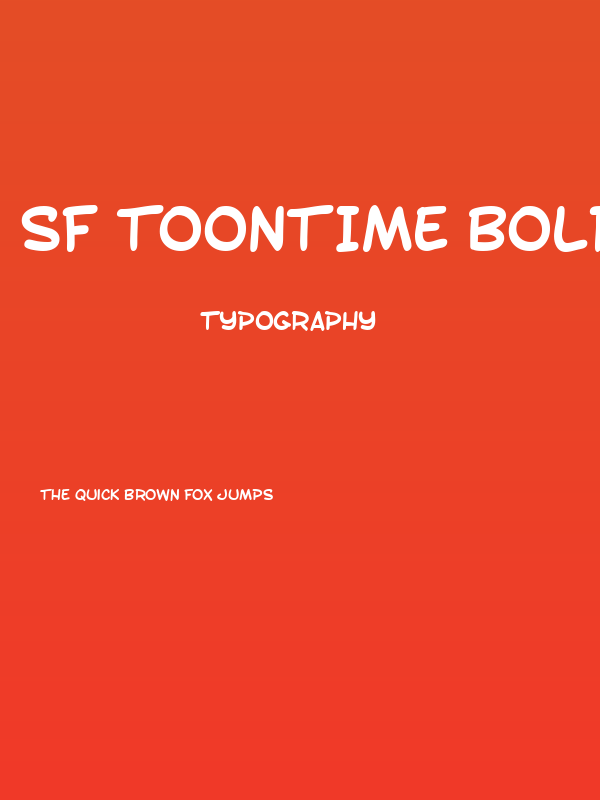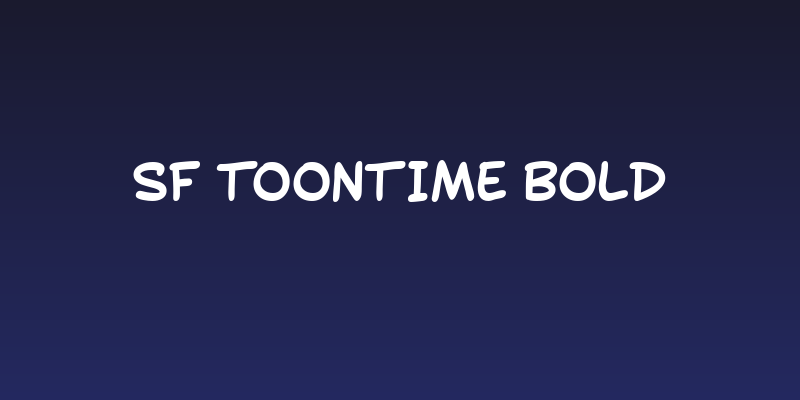
SF Toontime Bold Font
SF Toontime Bold Description
This playful and bold font features rounded, cartoon-like characters that convey a sense of fun and whimsy. The letters are thick and slightly irregular, giving them a hand-drawn appearance. This style is reminiscent of comic book lettering, making it ideal for projects that require a lively and informal tone. The font maintains consistent stroke thickness throughout, ensuring readability while adding a touch of personality. Its unique style makes it stand out, perfect for capturing attention in creative designs.
| Overall Style | Playful, Comic |
| Proposed Projects | Ideal for children's books, comic strips, playful branding, and informal posters. |